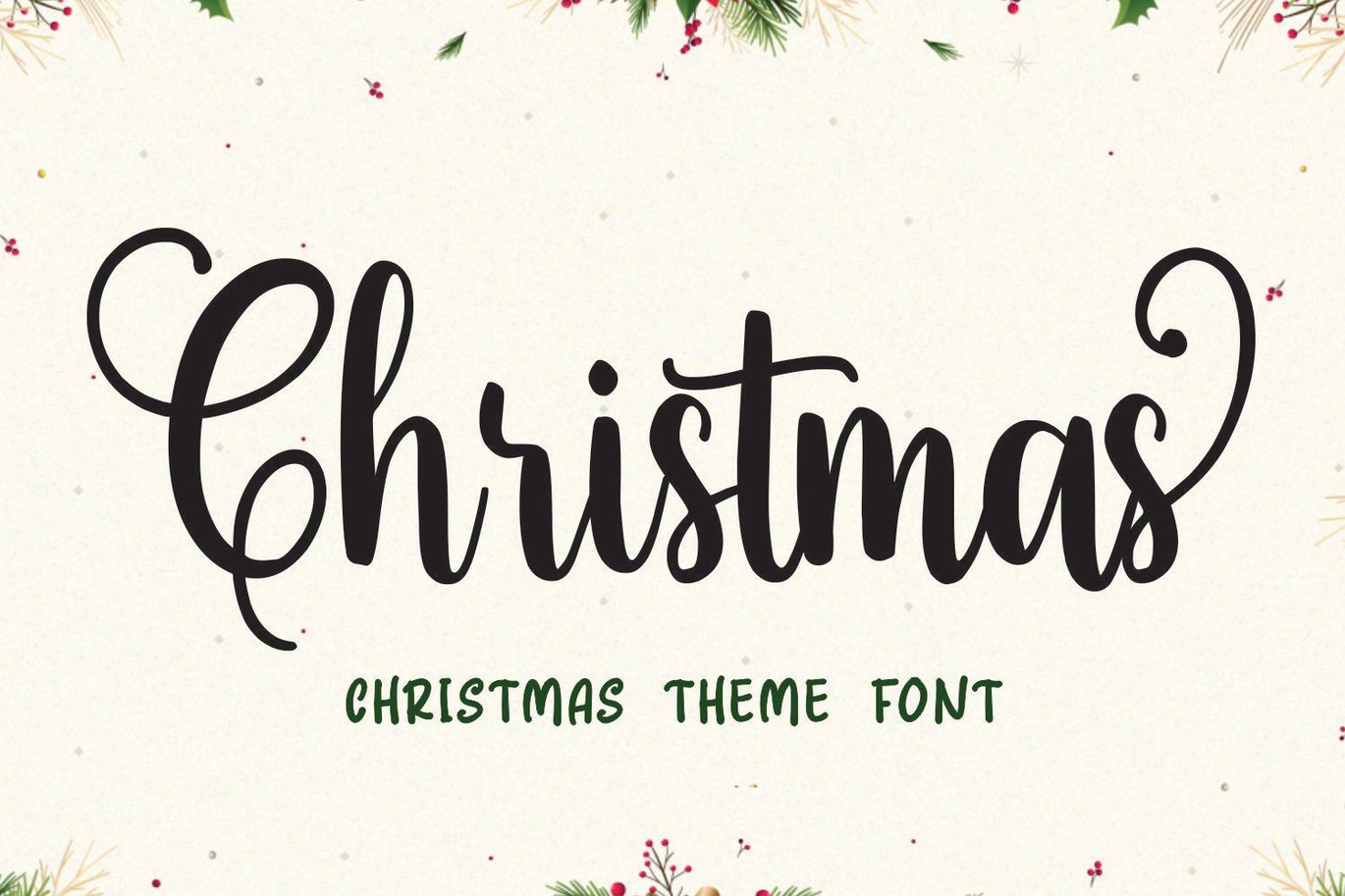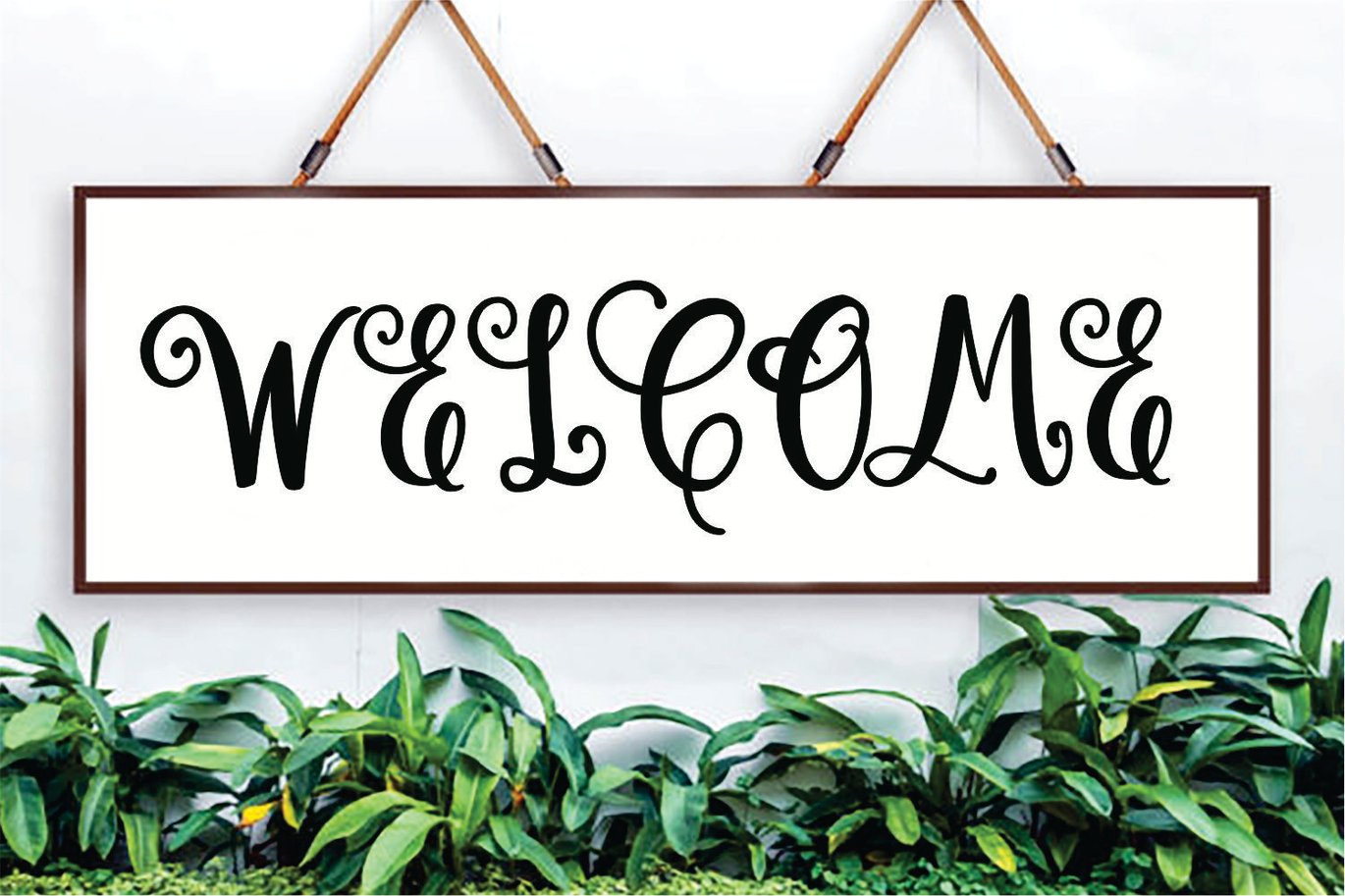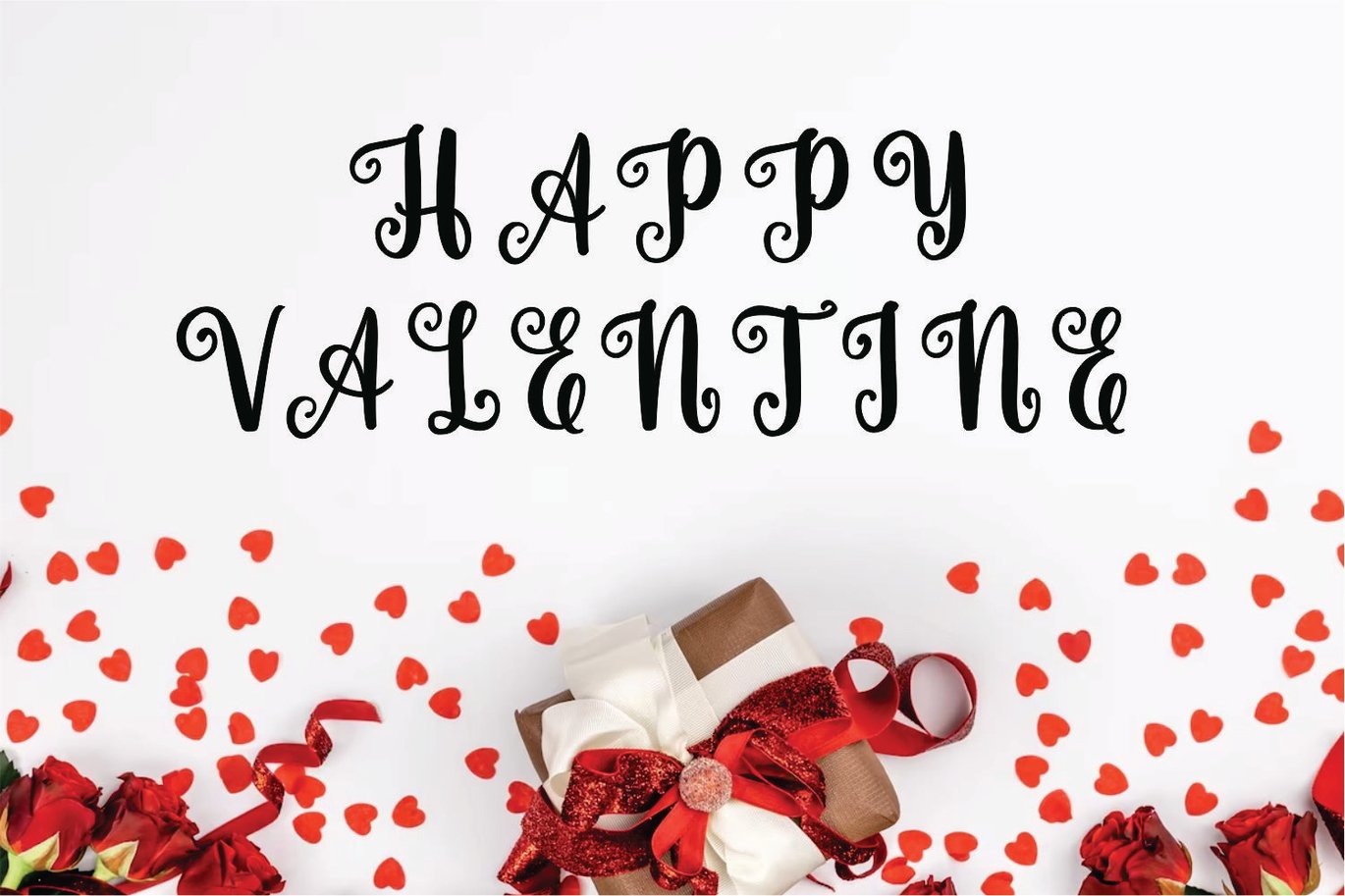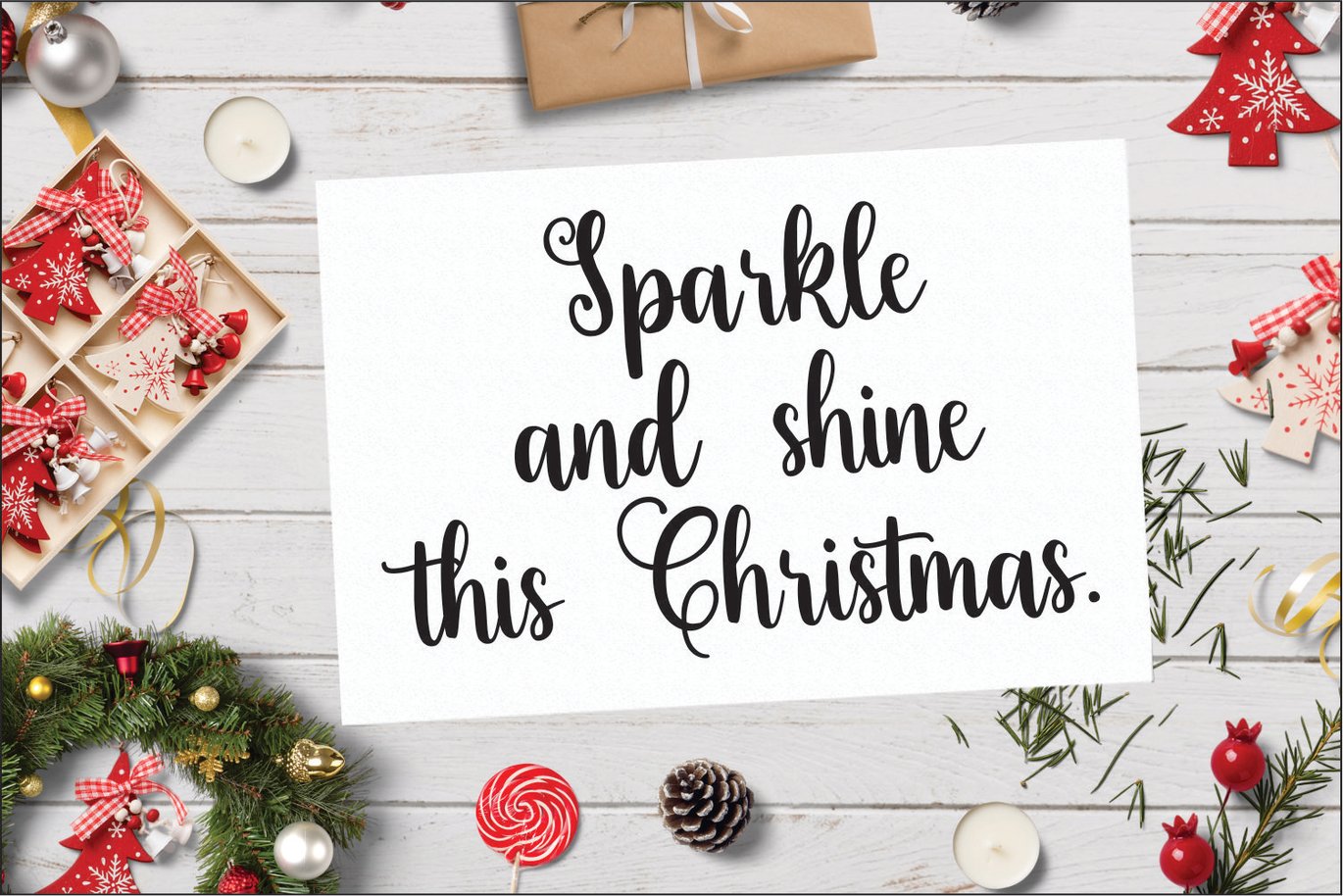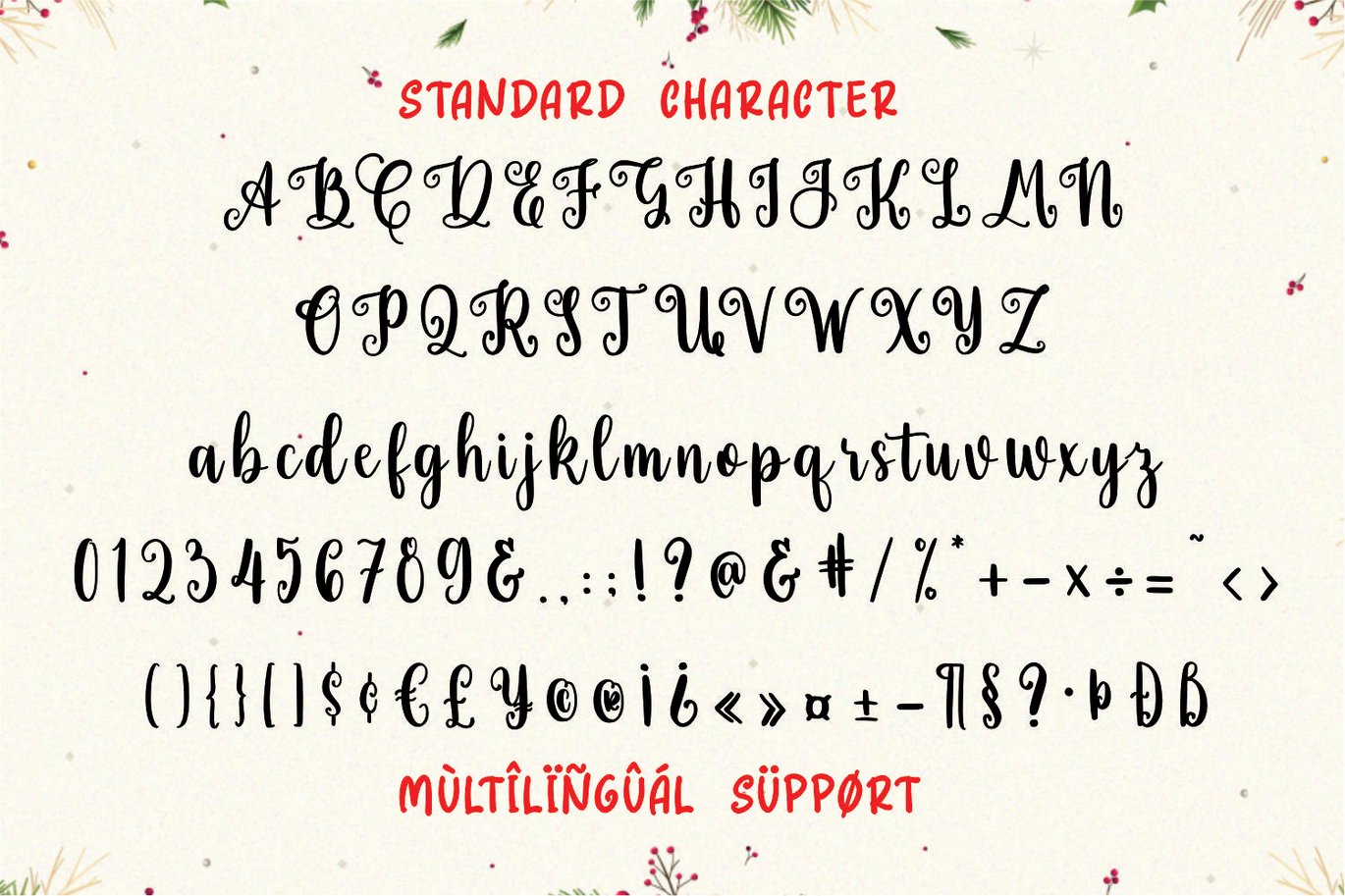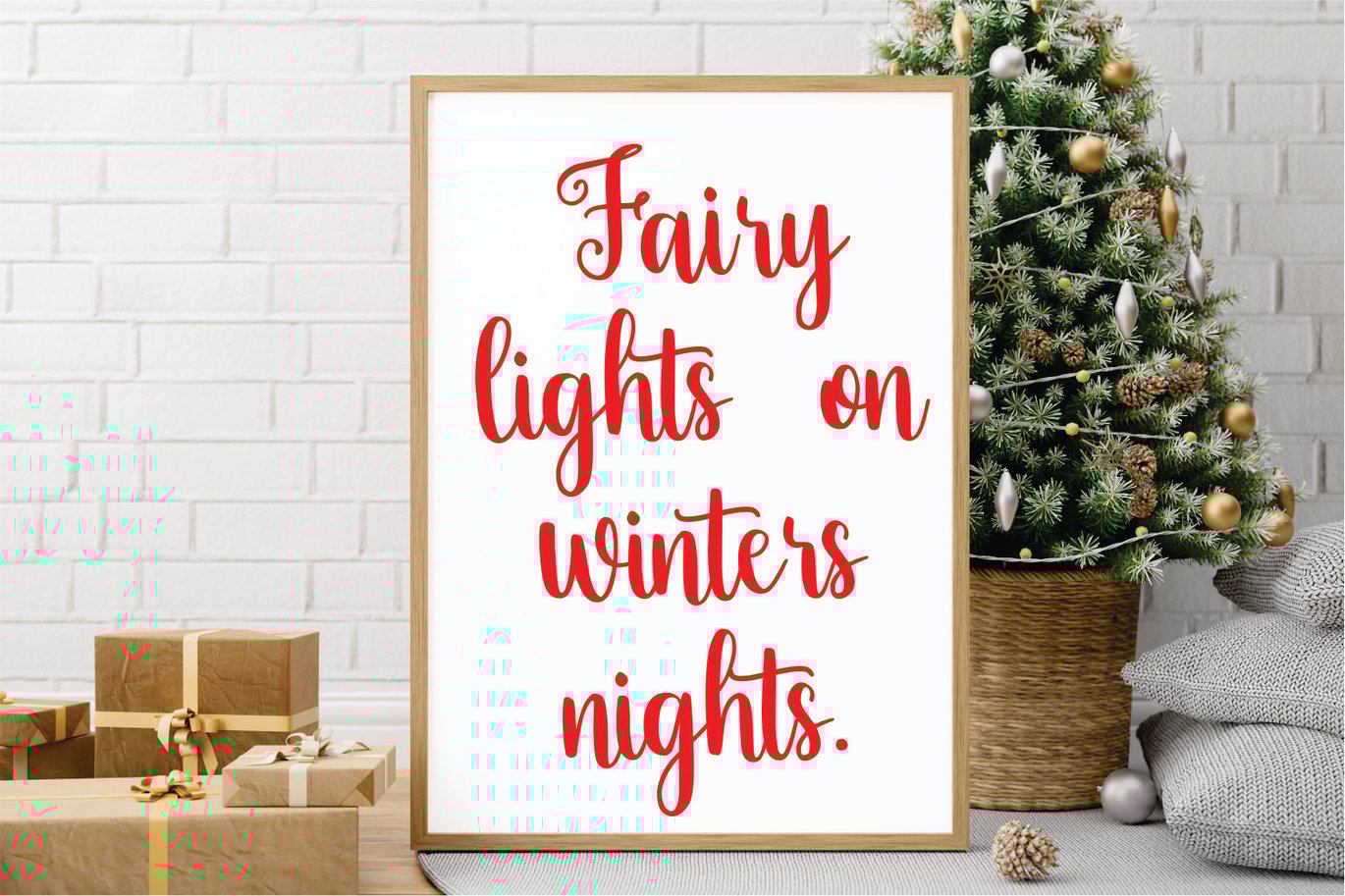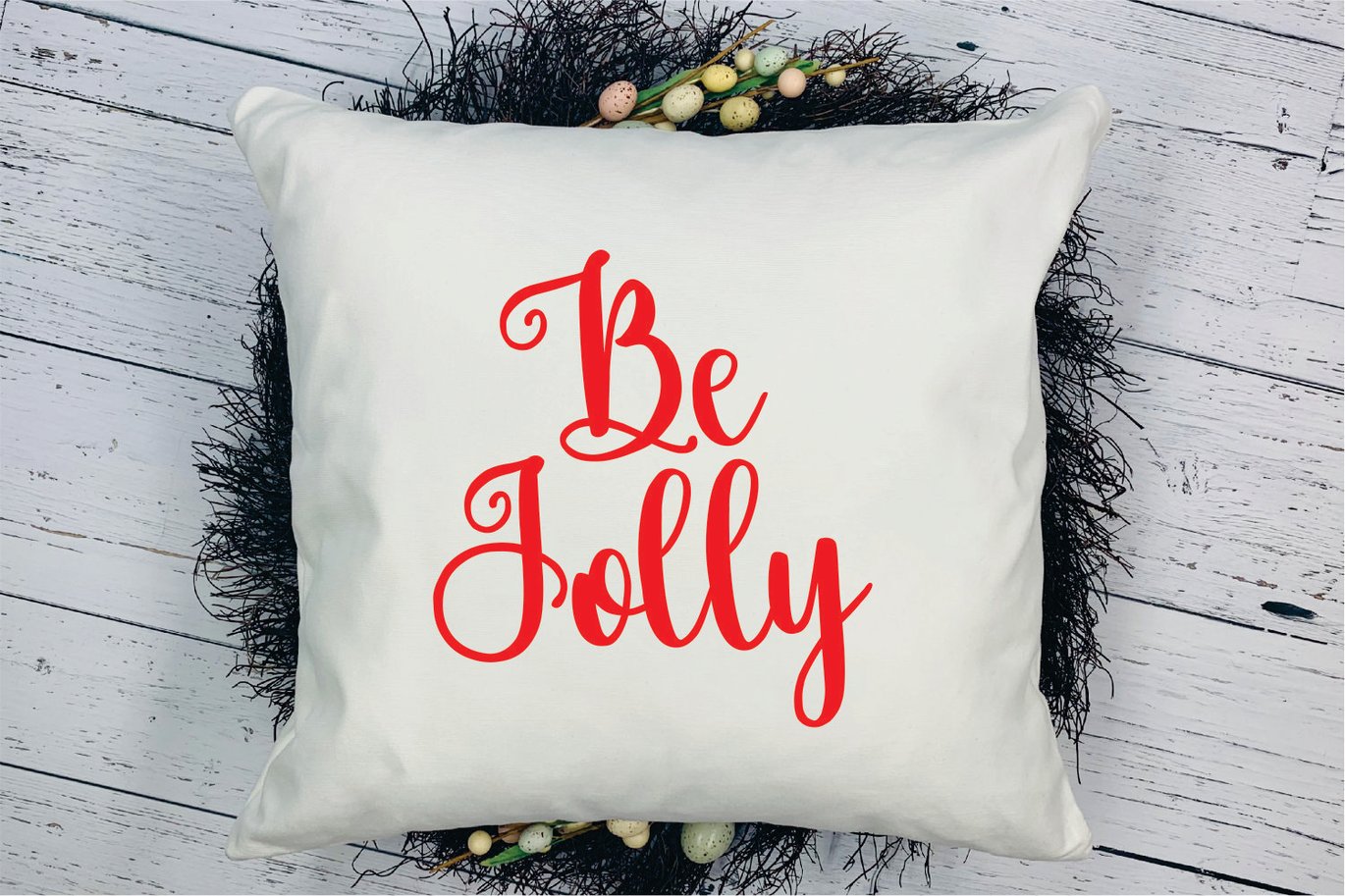
Christmas – Christmas Font
Christmas is a sweet and delicate handwritten font that captures the warmth and joy of the holiday season. Its dainty and joyful character makes it the perfect choice for adding a romantic, personalized touch to wedding invitations, greeting cards, and any design that calls for a touch of elegance. With its flowing style and graceful curves, Christmas will bring a sense of charm and warmth to all of your creative projects.
This font is PUA encoded, giving you easy access to all its special glyphs and ligatures. This means you can customize your designs with beautiful, unique characters that make each piece feel truly special. Ideal for crafting and branding, Christmas is a versatile choice that fits seamlessly into everything from home decor and blog headers to book covers and stylish stationery.
Whether you’re designing a logo, creating a beautiful frame for your home, or crafting heartfelt holiday cards, Christmas is a font that will add a magical touch to every project. Its delicate script style is perfect for those looking to create designs that are both elegant and full of holiday cheer. The smooth and refined strokes make this font stand out, bringing a touch of sophistication to your work.
Fall in love with the incredibly versatile style of Christmas, and let it inspire your next design! With its delicate, handwritten feel, this font will elevate everything from magazines to marketing materials, adding a touch of sweetness and charm. Use Christmas to create spectacular designs that will leave a lasting impression and spread holiday joy all year round!
- Standard & Multilingual glyphs.
- Alternates & Ligatures
- Fonts include multilingual support for; Afrikaans, Danish, Dutch, French, German, Indonesian, Irish, Italian, Norwegian, Portuguese, Scottish, Spanish, Swedish, Swiss, etc.